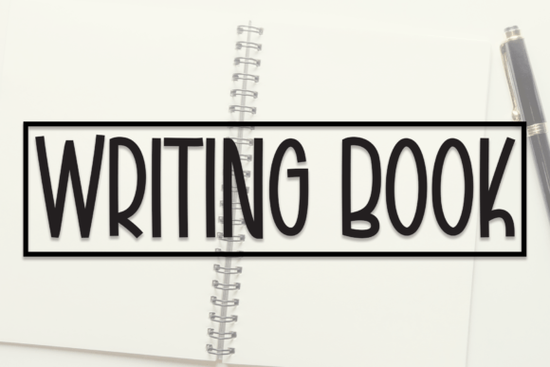
If you’re after a handwritten style that feels genuine and not overly polished, the Writing Book Font is a solid option. It’s designed to mimic the natural flow of pen on paper, which makes it surprisingly versatile for both digital and print projects. The letters have a relaxed, slightly uneven rhythm that adds a human touch without looking messy.
Which projects work best with the Writing Book Font?
This font really shines wherever you want a personal, hand-lettered feel. Because the strokes are clean but not rigid, it fits well into both elegant and casual settings. Here are some common uses:
- Wall displays – quotes, signage, or bedroom art where you want a warm, organic look.
- Wedding invitations – the soft curves work beautifully for save-the-dates, ceremony programs, and thank-you cards.
- Social media graphics – logos, quote cards, and Instagram posts that need a friendly, approachable tone.
- Product packaging – labels for handmade goods, candles, or small-batch food items.
- Watermarks and branding – photographers and small businesses use it for subtle, elegant watermarks.
It also handles longer text surprisingly well for a script font, which is rare. You can use it for product descriptions or short paragraphs without losing readability.
How does the Writing Book Font compare to other popular script fonts?
If you’ve tried other handwritten fonts like Camila Ashton, you’ll notice it has a more casual, everyday feel. Camila Ashton leans slightly more elegant, while Samantha Script offers a bouncier, more decorative style. The Writing Book Font sits somewhere in the middle – it’s not too fancy, not too plain.
For a playful, youthful vibe, Sweet Baby is a great alternative, but it’s more rounded and soft. And if you’re designing educational materials or worksheets, the ABCD Cursive Handwriting Tracing Bundle is purpose-built for that. Meanwhile, Sunshine Flower adds floral-inspired swashes, which is a different aesthetic entirely.
The point is, each script font has its own personality. The Writing Book Font works best when you want something that feels authentic without screaming for attention.
How can I pair the Writing Book Font with other fonts?
Because it’s a script, it pairs naturally with clean sans-serif fonts for contrast. Try using it for headings or short phrases, and a simple sans like Montserrat or Lato for body text. If you want a more cohesive look, pair it with another script that has a different weight or rhythm – for example, using the Writing Book Font for the main headline and Camila Ashton for a subheading can create a layered, hand-drawn feel. Just be careful not to use two similar scripts that compete for attention.
What should I keep in mind when using handwritten fonts for branding?
Handwritten fonts can make a brand feel approachable, but they can also hurt readability if overused. Stick to short bursts of text – taglines, product names, or single words – and avoid using them for long paragraphs or dense blocks. Also, consider the spacing: the Writing Book Font has natural kerning, but you may want to adjust tracking in design software for certain layouts.
Another tip: test the font at small sizes. Some scripts lose legibility below 14pt, while this one holds up decently down to 12pt thanks to its consistent stroke width. Always preview it in context before committing.